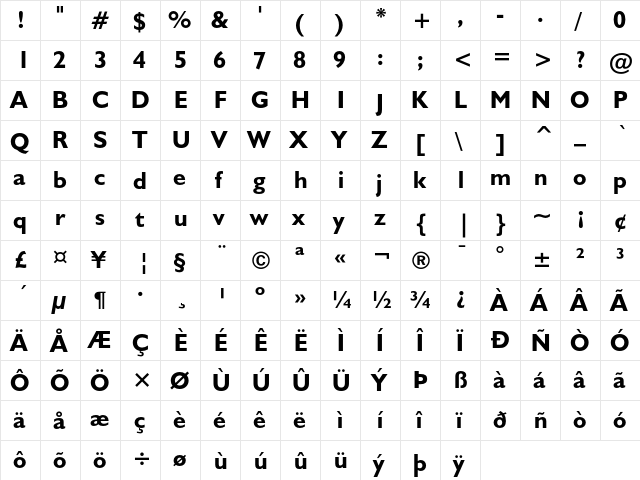
Humanist 521 Bold
Design Context for Humanist 521 Typeface
Humanist 521 takes a measured approach to typography — its balanced proportions and neutral character make it a reliable workhorse for both digital and print work. Its bold stroke weight gives it real presence on the page.